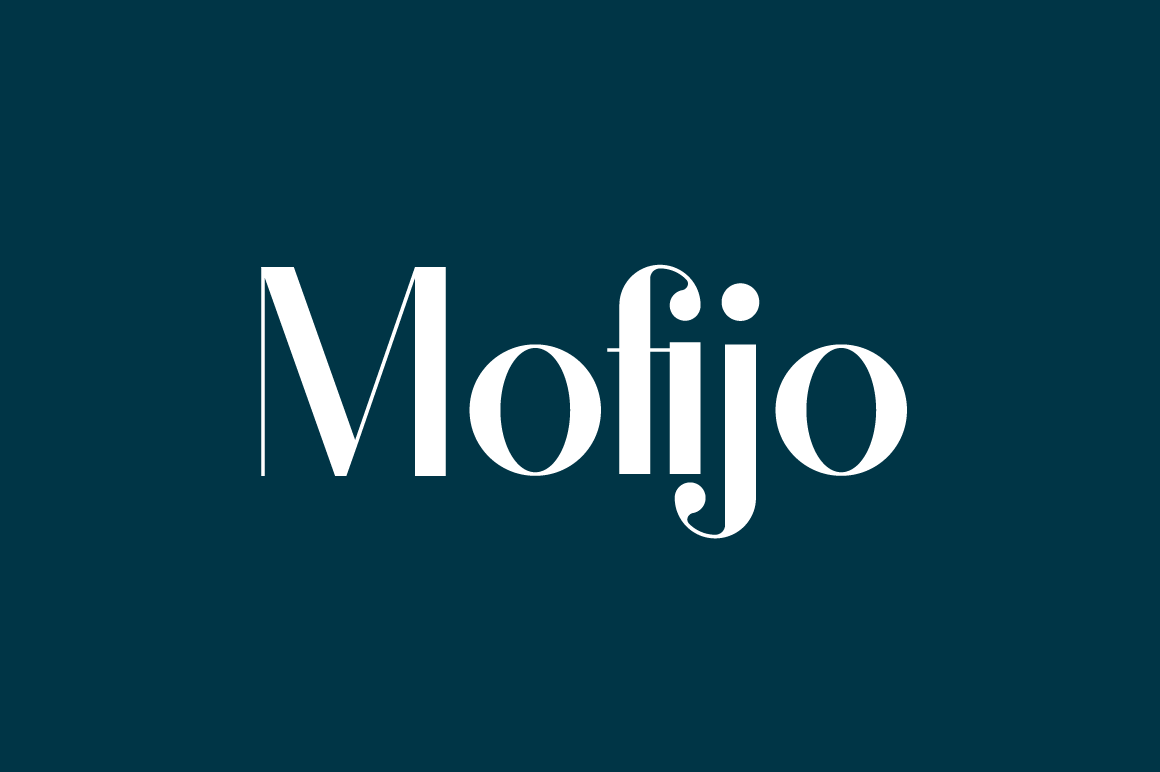
Mofijo Sans Serif Font
Mofijo Font is a minimal, classic sans serif typeface. It has a little bit of personality and can be used for both headers and body copy. This font has uppercase , lowercase letters ,all latin characters (including accents), numbers, special characters, and punctuation.